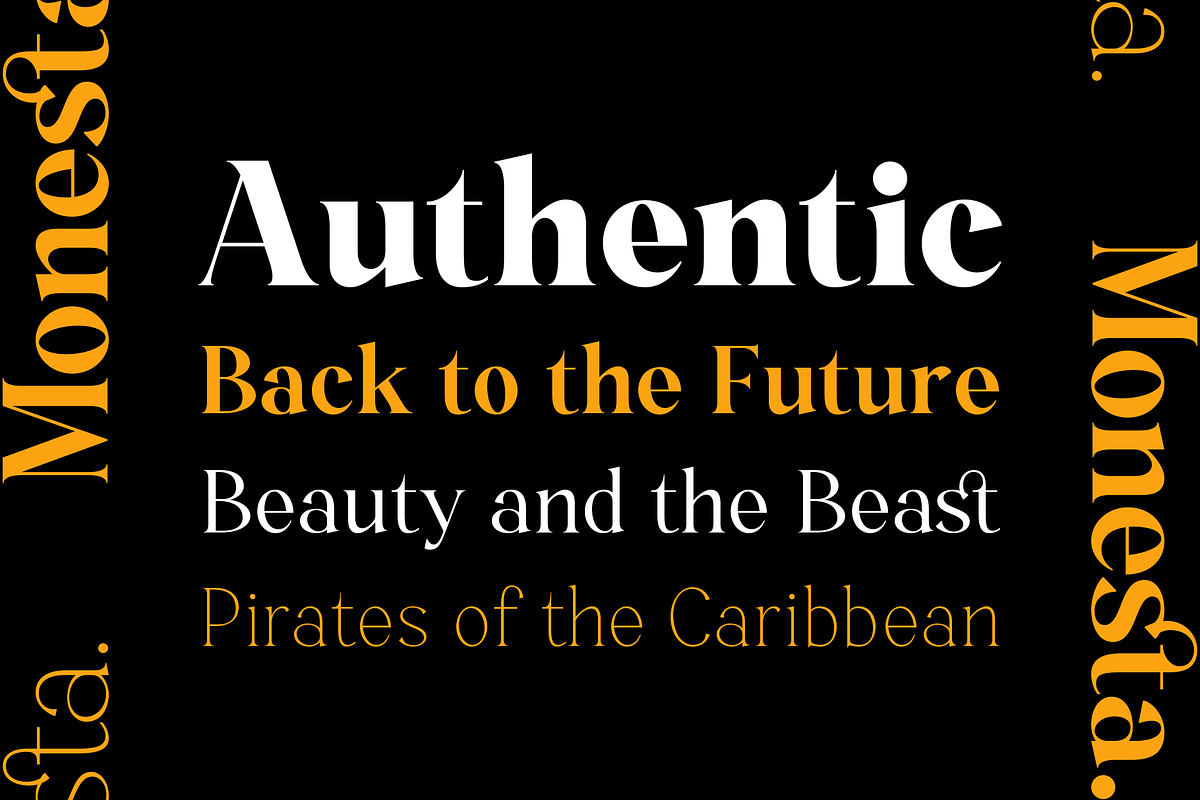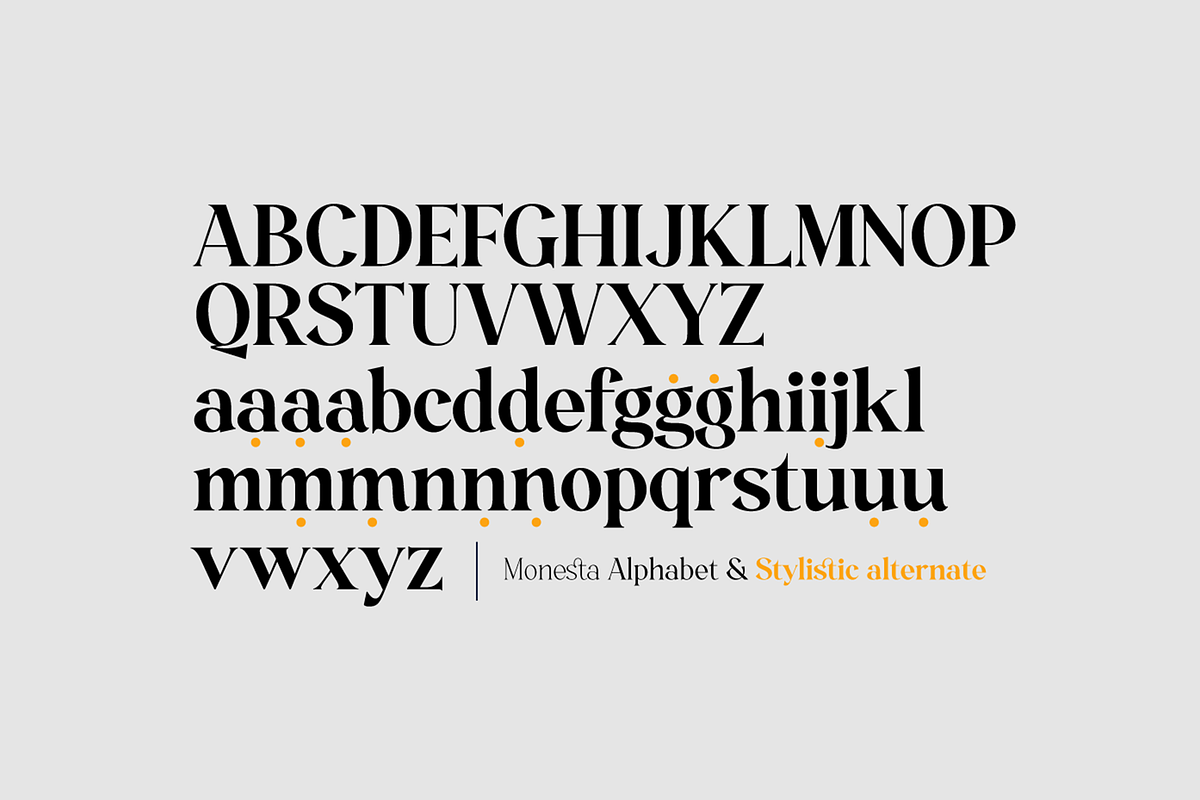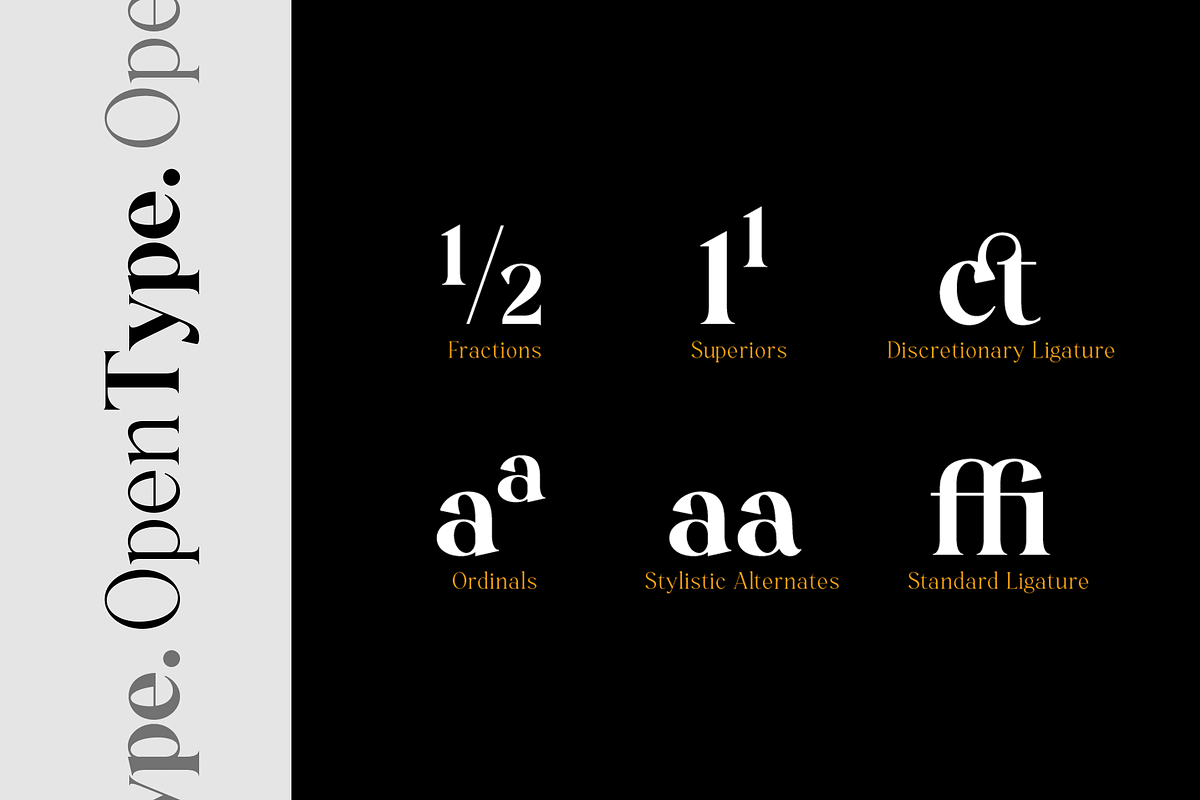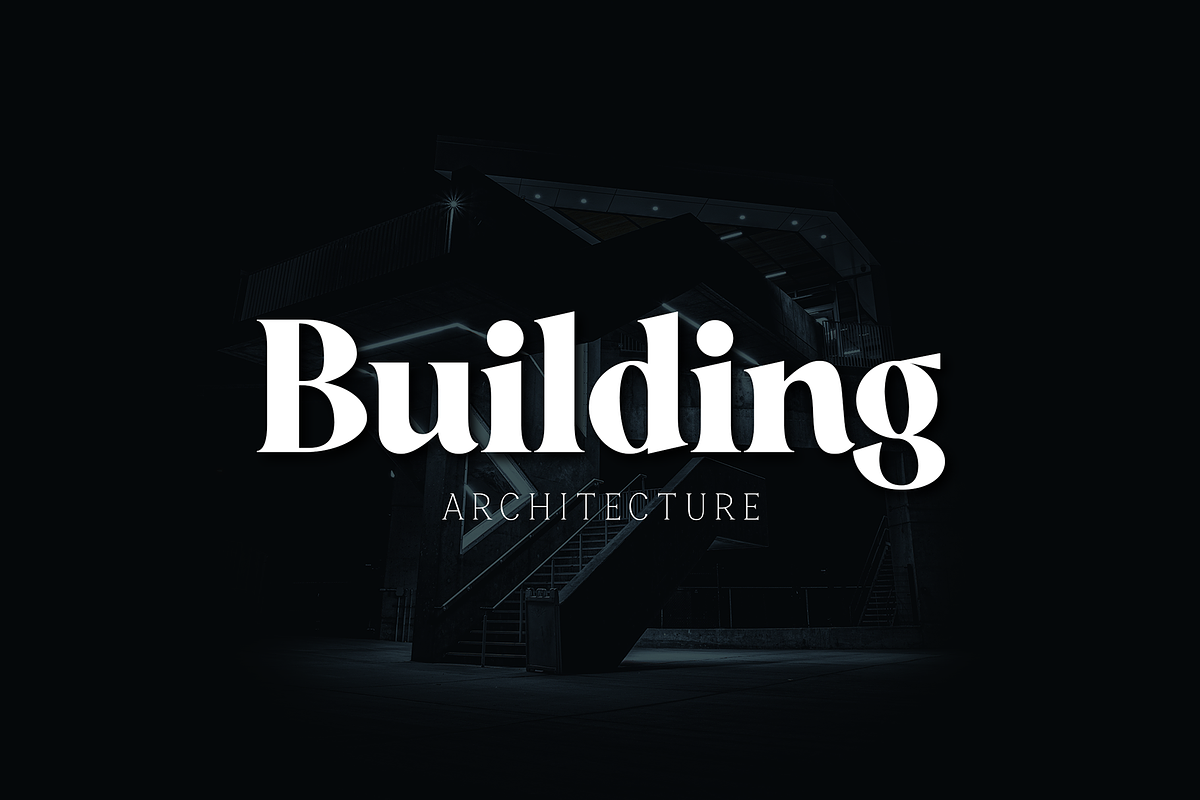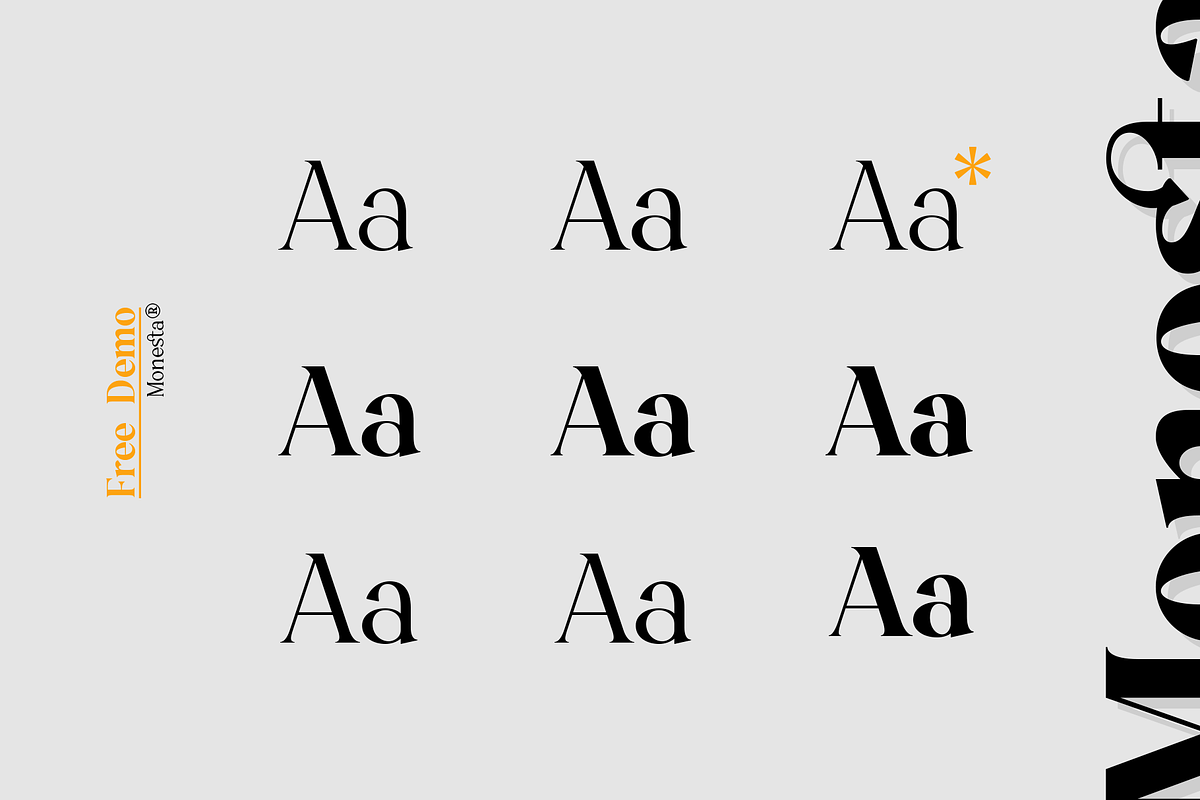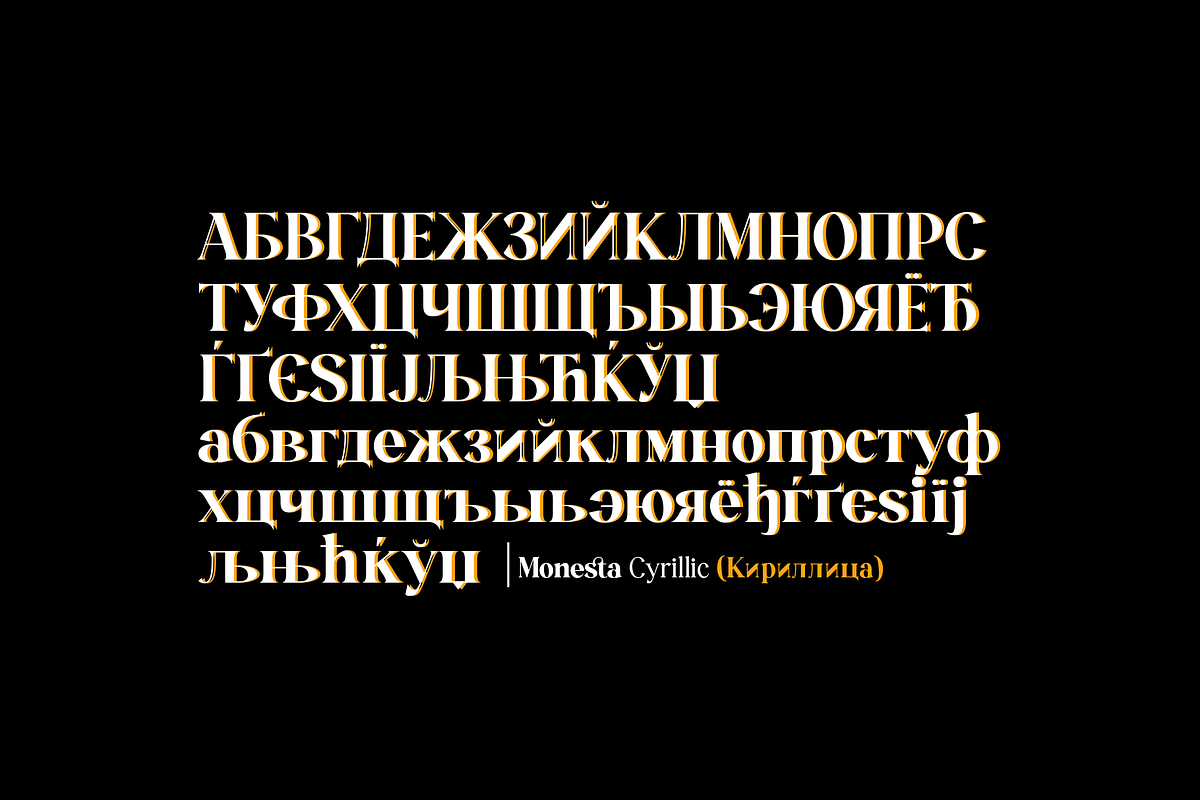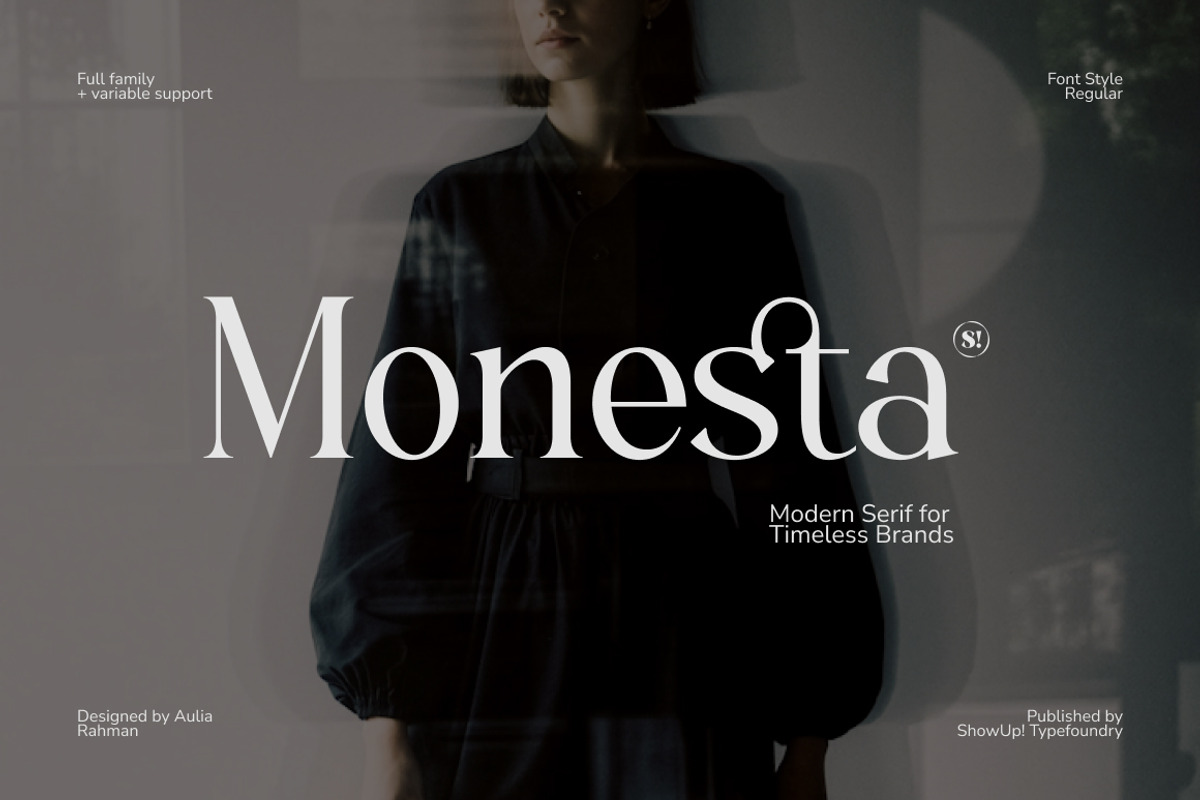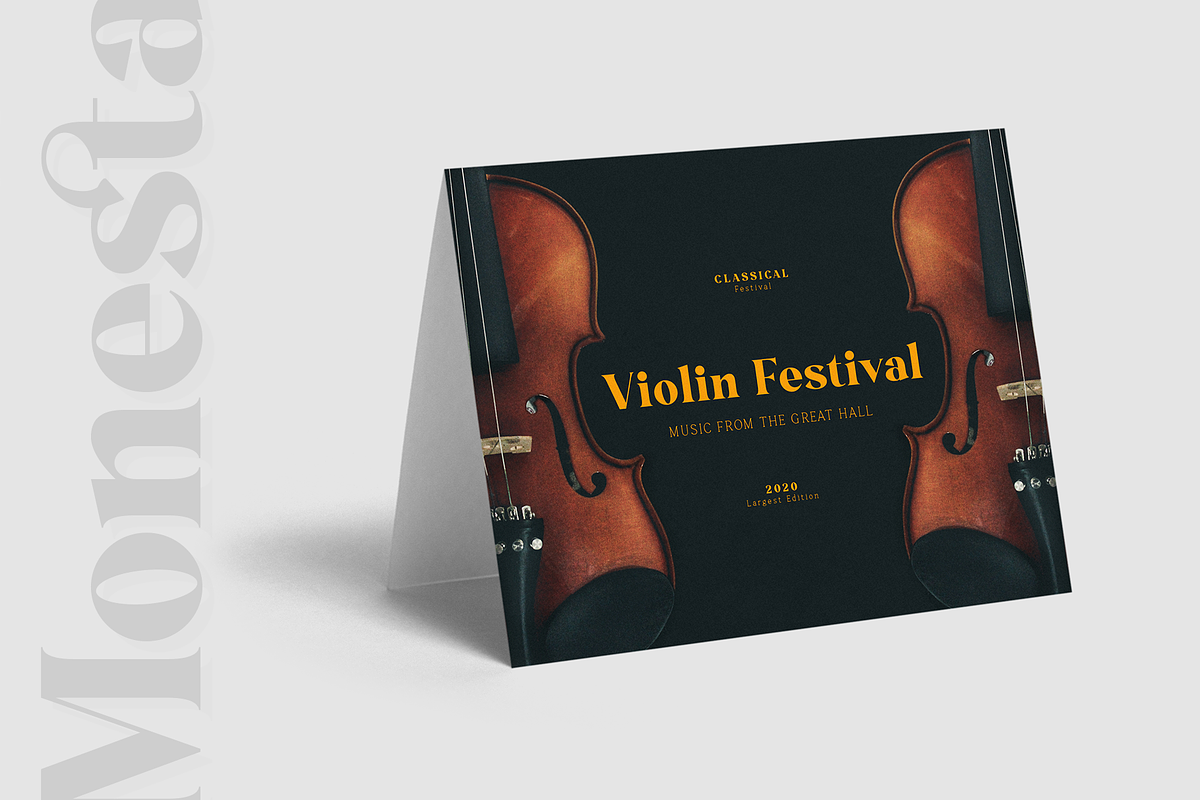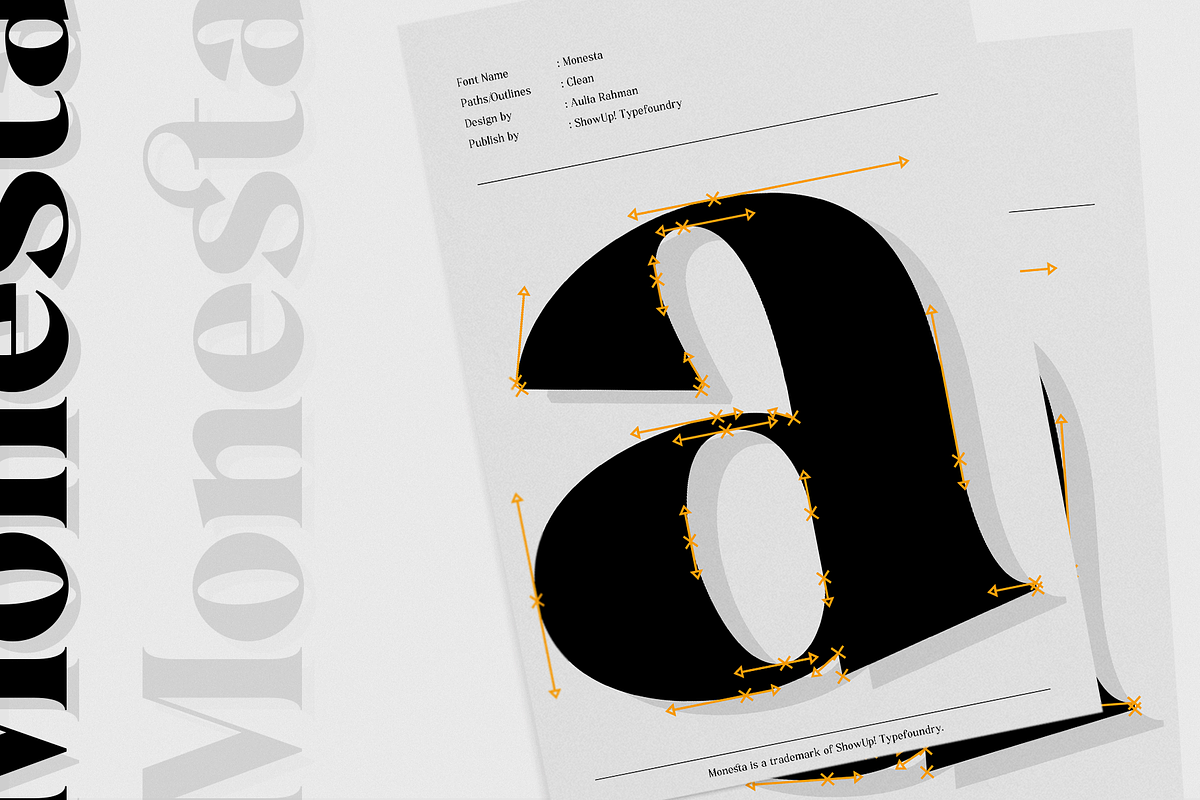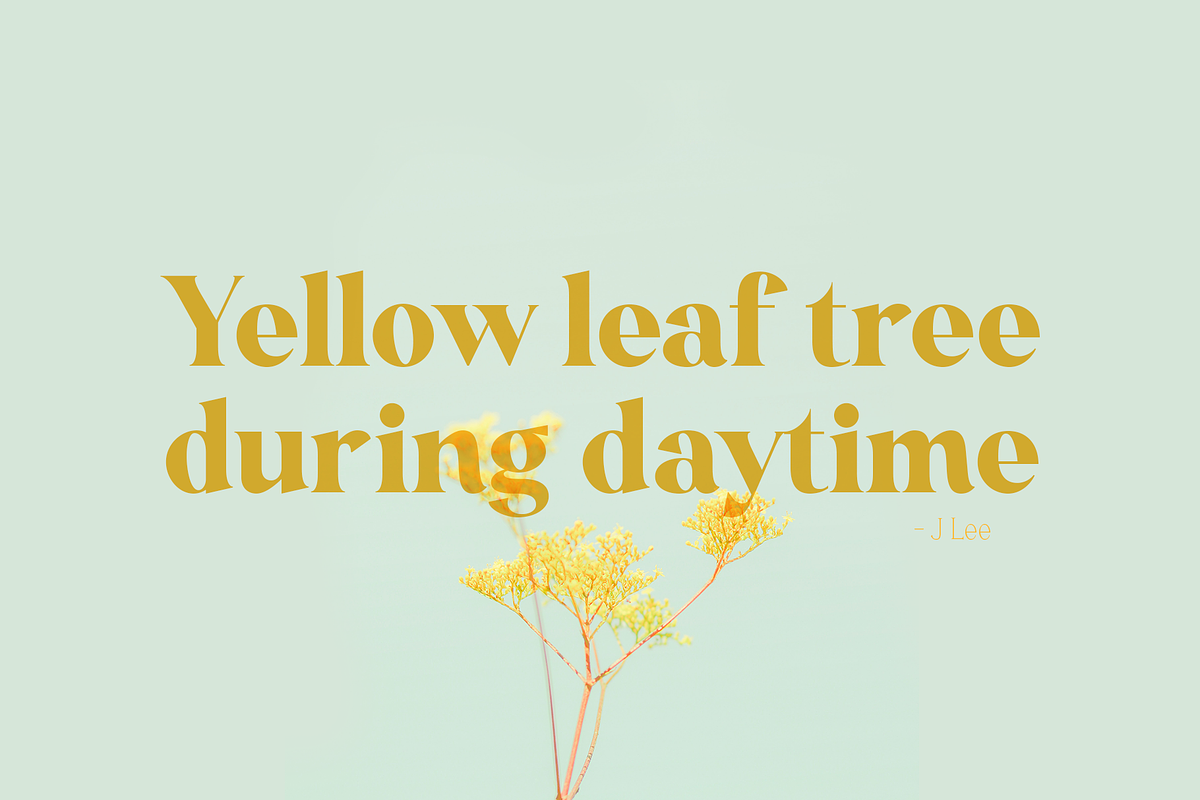
Monesta Regular
Monesta Regular – Modern Serif Font
Introducing Monesta Regular, a refined modern serif font designed to bring timeless elegance and contemporary sophistication to your creative projects. With graceful curves, balanced proportions, and high-contrast letterforms, Monesta Regular is perfect for creating premium branding and editorial typography.
Whether you're designing a luxury logo, beauty packaging, magazine layout, or elegant marketing materials, Monesta Regular delivers a clean, stylish, and memorable impression.
Luxury Branding
Logos & Logotypes
Editorial Design
Fashion & Beauty Brands
Magazine Covers
Wedding Stationery
Website Headlines
Business Cards
Premium Marketing Materials
Modern Serif Style
Standard Ligatures
Optimized for Print & Web
Monesta Regular offers a perfect balance between classic serif elegance and modern minimalism, making it an excellent choice for designers who want to create refined, luxurious, and timeless visual identities.